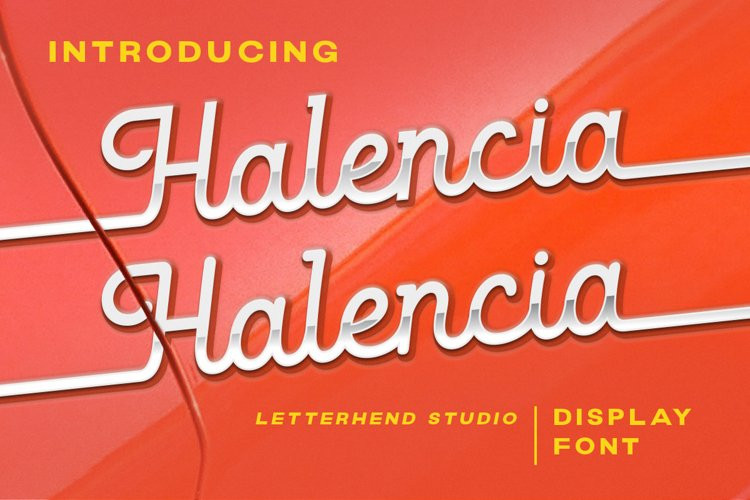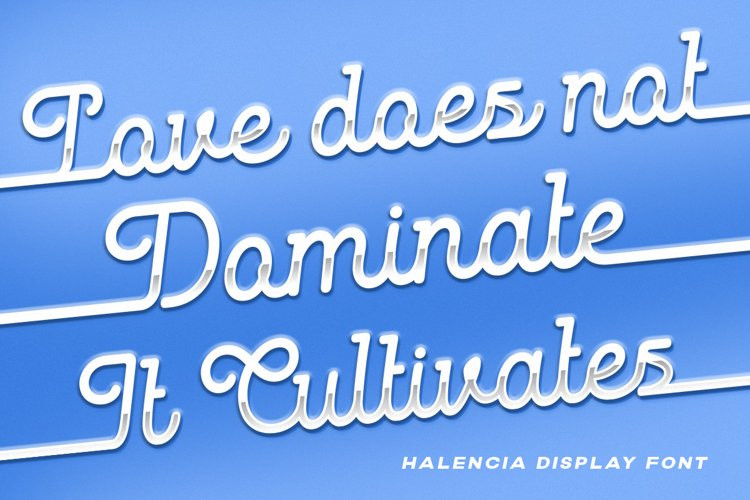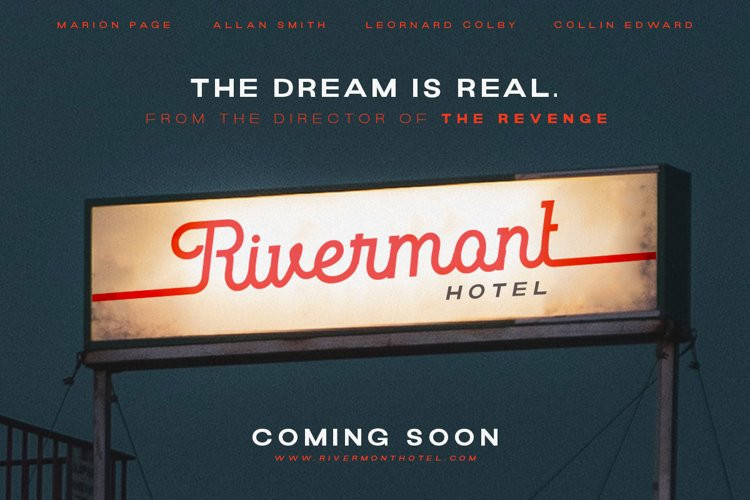
Halencia Font
Halencia FontHalencia is a bold monoline script with a touch of vintage look and feel. This type of font perfectly made to be applied especially in logo, headline, signage and the other various formal forms such as invitations, labels, logos, magazines, books, greeting / wedding cards, packaging, fashion, make up, stationery, novels, labels or any type of advertising purpose.